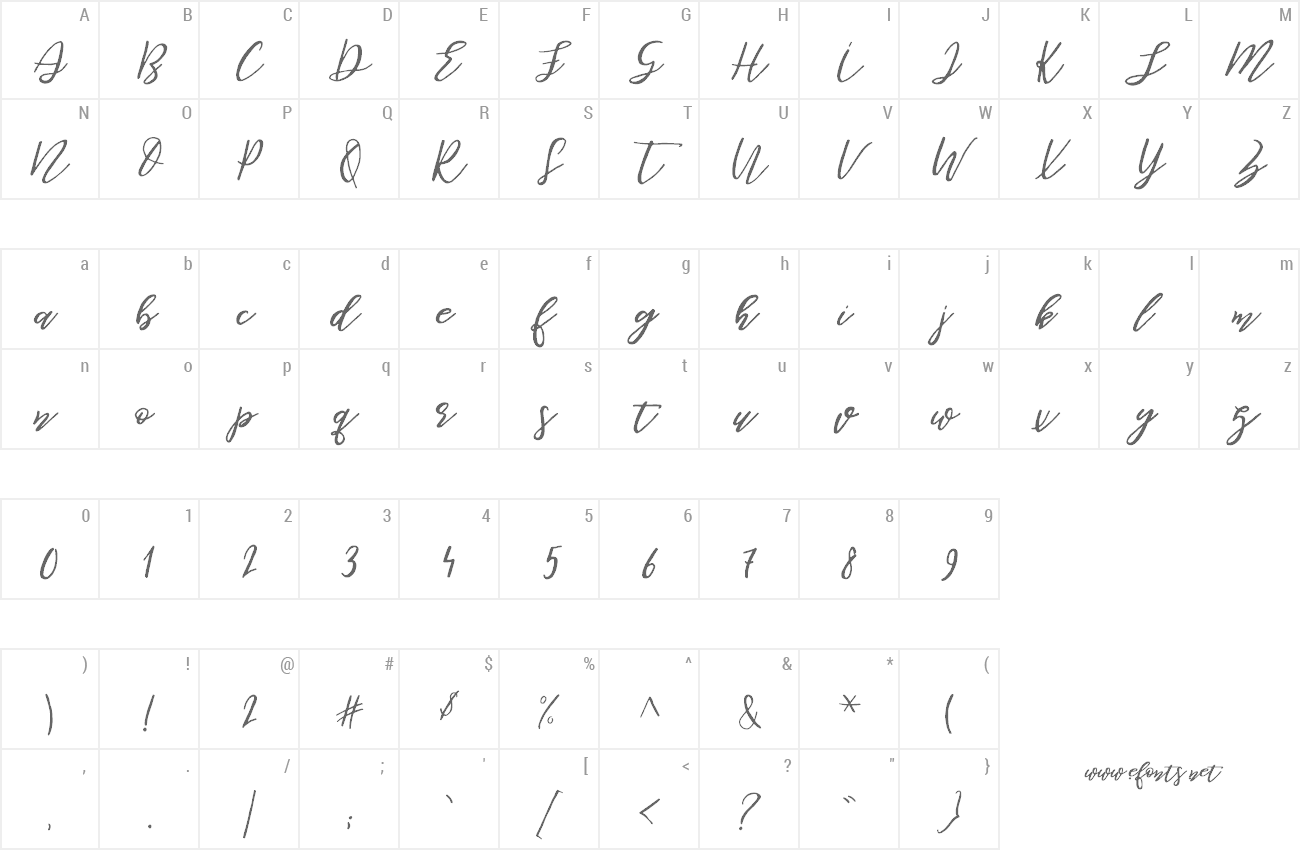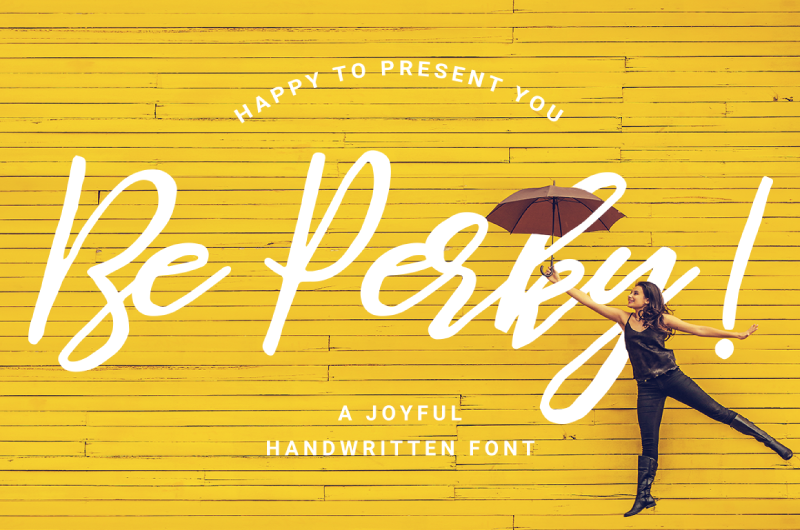
Preview and download Be Perky Font. Created by LovePowerDesigns in Script Handwritten styles with Free for personal use license.
By installing or using this demo version you agree to use it as PERSONAL USE ONLY and requires a license for commercial use! --- The font license can be purchased at: https://lovepowerdesigns.com/ --- I'm Happy to present you: Be Perky! Handwritten Font. A joyful and natural handwritten font perfect for an authentic brush-lettered feel on your logo, name tag, handwritten quotes, product packaging, social media & greeting cards, badges, labels, blog headlines advertising, poster design, book covers, magazines, fashion campaigns, newsletters, album covers, and more... |